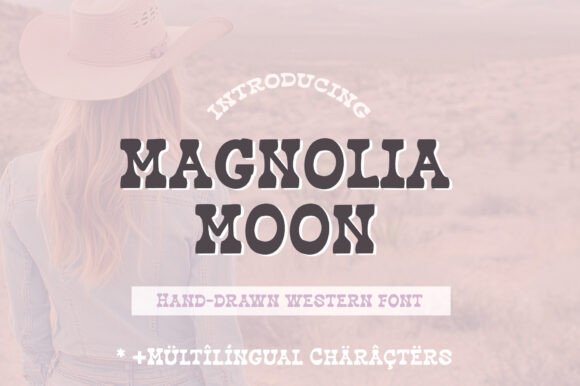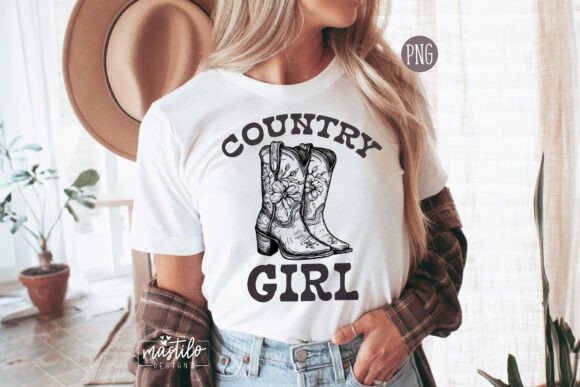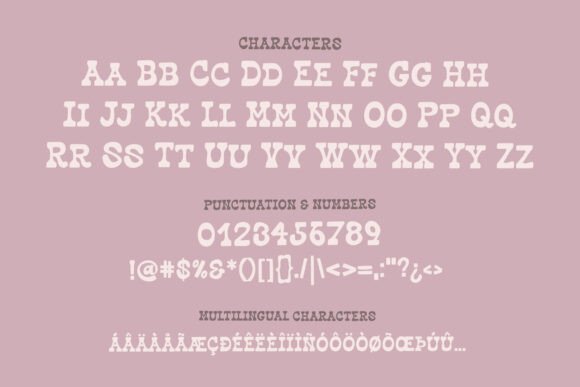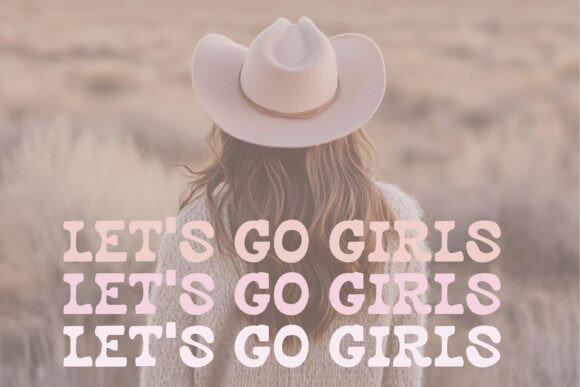
Magnolia Moon Font: Rustic Western Font for Cricut & DIY Projects!
About the Magnolia Moon Font
We are excited to introduce Magnolia Moon Font, a must-have typeface for any serious designer. Introducing MAGNOLIA MOON, a handwritten western style display font. A versatile font, with possibilities for use for all your projects. With the possibilities to change the Uppercase strokes to different colors it makes a great craft font for all your projects.
Magnolia Moon excels as a display font for headlines, short titles, and branding elements where its handcrafted charm can shine. Its unique color-changeable stroke feature makes it ideal for projects requiring a touch of playful western flair, such as posters, invitations, or packaging for craft products. Avoid using it for body text or lengthy paragraphs; its readability suffers at smaller sizes.
The font’s core personality is cheerful and rustic, leaning towards a friendly, approachable aesthetic. It works particularly well for brands associated with nature, crafts, or the American West.
Consider pairing Magnolia Moon with a clean sans-serif like Montserrat for a balanced contrast, or a classic serif like Playfair Display for a more traditional feel. A simple geometric sans-serif could also provide a modern counterpoint. Avoid pairing it with overly decorative or highly stylized fonts, as this would clash with its organic quality.
Magnolia Moon Font Usage Examples
Magnolia Moon Font Example